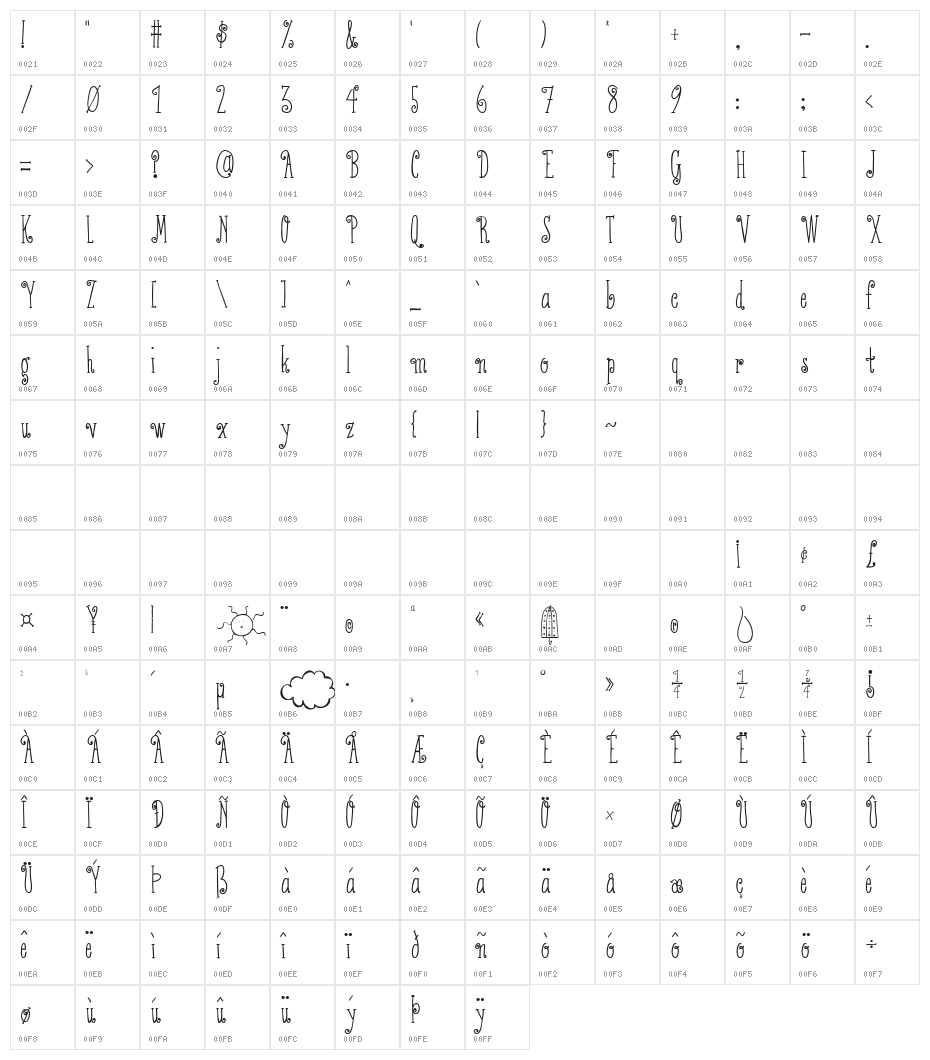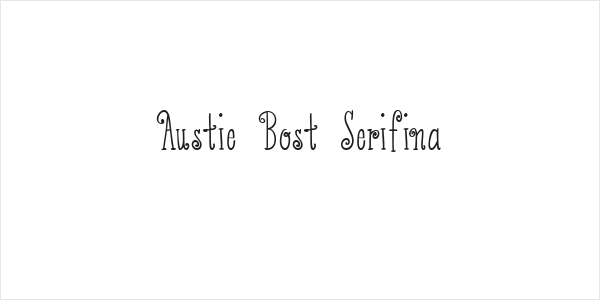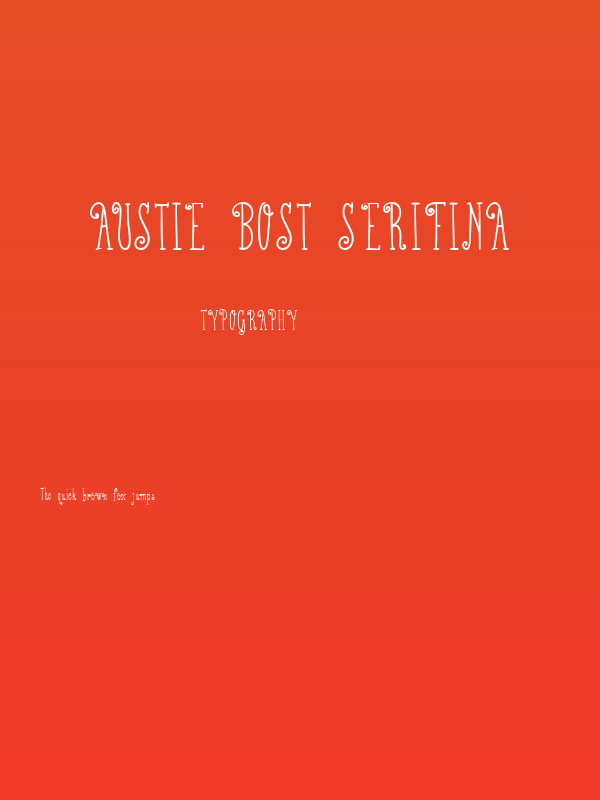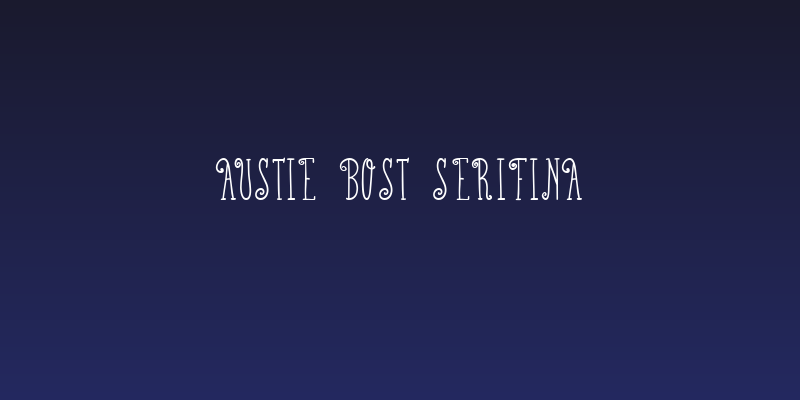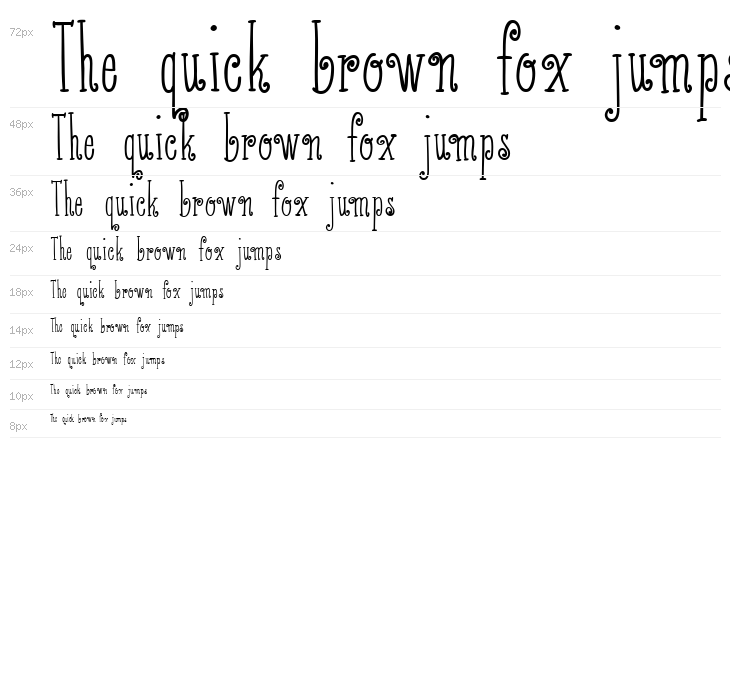
Austie Bost Serifina Font
Austie Bost Serifina Description
This font features a whimsical and playful design with a decorative flair. The characters are elongated and have unique, curly serifs that add a touch of elegance and charm. The uppercase letters are tall and narrow, while the lowercase letters maintain a consistent style with slight variations in height. The numbers and special characters follow the same decorative theme, making the font cohesive and visually appealing. Its distinct style makes it suitable for creative projects that require a fun and engaging look.
| Proposed Projects | Ideal for children's book covers, playful invitations, greeting cards, and creative branding. |